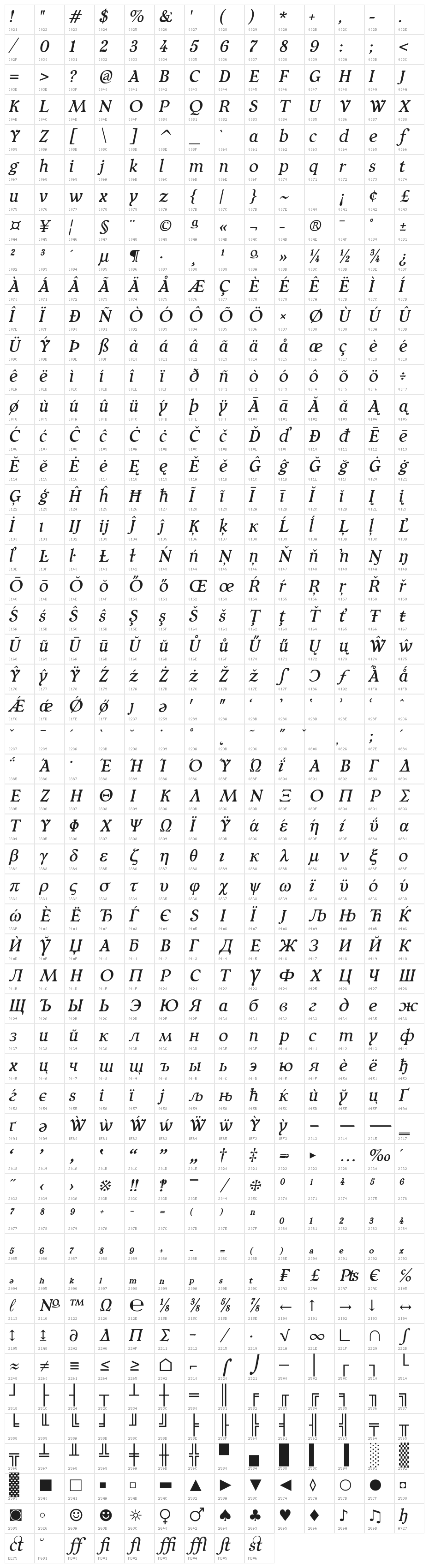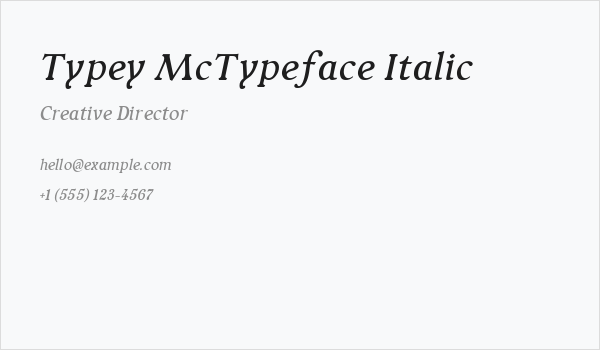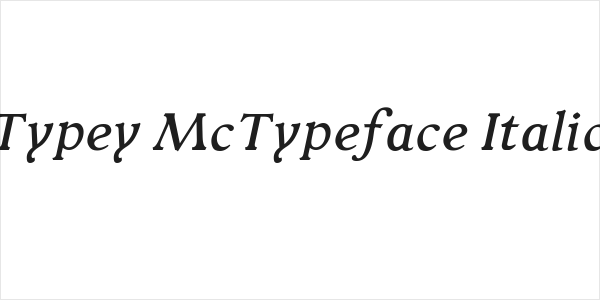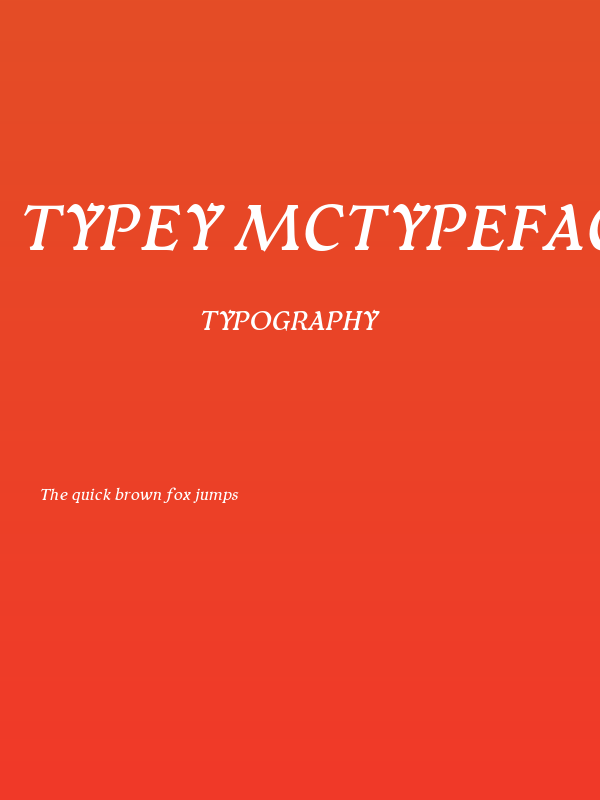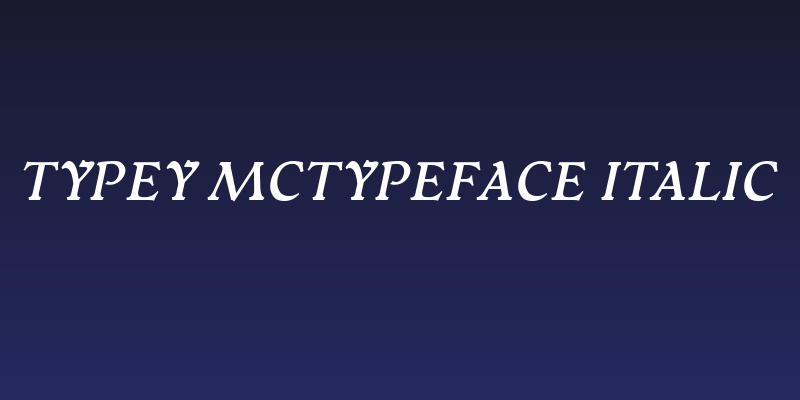
Typey McTypeface Italic Font
Typey McTypeface Italic Description
This font exhibits a classic italic style with elegant curves and a sophisticated flair. The uppercase letters are slightly slanted, giving a sense of motion and fluidity. The lowercase letters maintain a consistent slant, enhancing readability while preserving the font's graceful appearance. The numerals are well-proportioned and align seamlessly with the overall design, making them suitable for various applications. Special characters are thoughtfully designed to match the font's aesthetic, ensuring a cohesive look across all text elements. The font's overall appearance is both timeless and versatile, suitable for a wide range of design projects.
| Proposed Projects | Ideal for elegant invitations, formal documents, branding, and editorial design. |